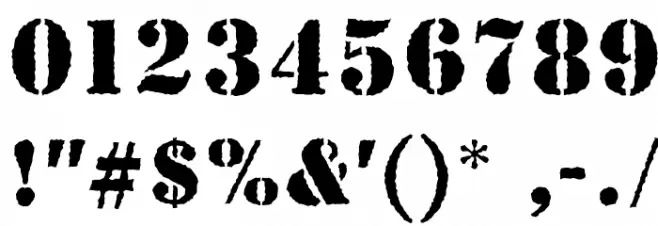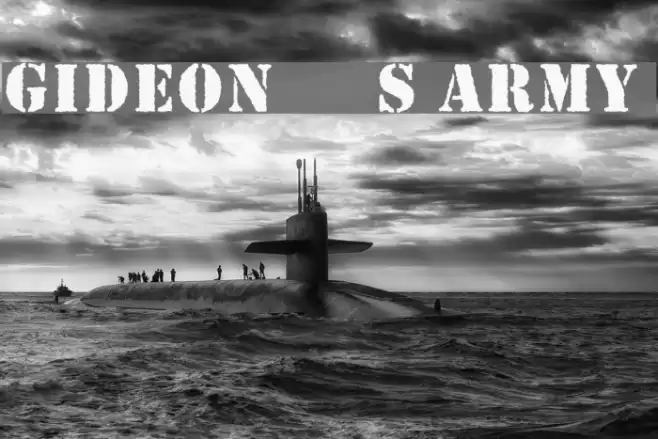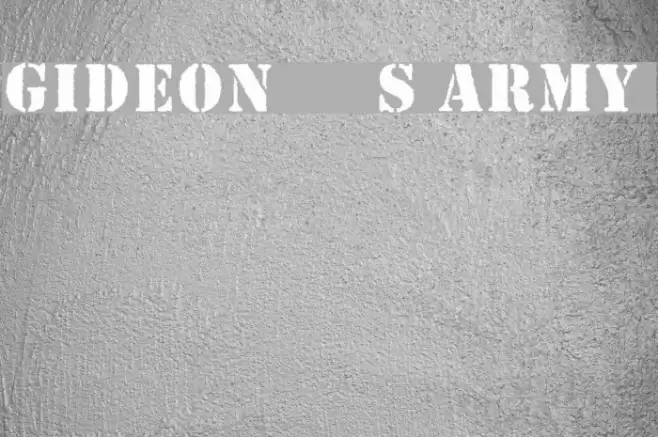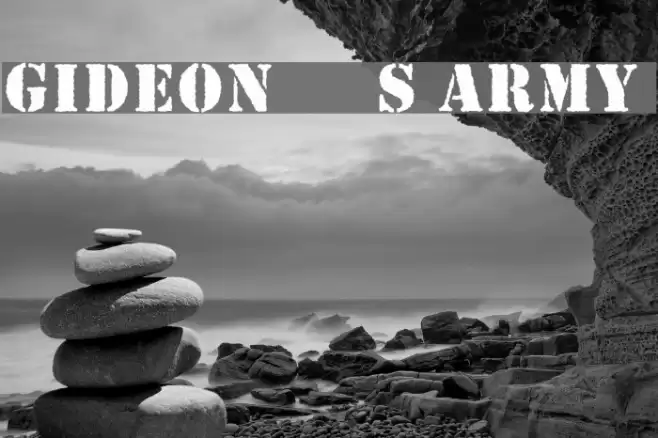
Gideon s Army Font
Gideon s Army Description
This font features a bold, stencil-like design with a rugged and industrial feel. The characters are heavily weighted with a distinct, cut-out appearance that gives them a military or utilitarian aesthetic. The uppercase letters are prominent and commanding, while the numerals and special characters maintain the same boldness and style. The font's design is reminiscent of vintage military stencils, making it ideal for projects that require a strong, authoritative look. The spacing between characters is relatively tight, enhancing its compact and impactful presence.
A bold, stencil-style font with a rugged, military-inspired design from Military fonts.
• Font: Gideon s Army
• Proposed Projects: Ideal for military-themed designs, posters, logos, and branding that require a strong, authoritative presence.
• Overall Style: Vintage
• Use Case: Headlines, Logos, Posters